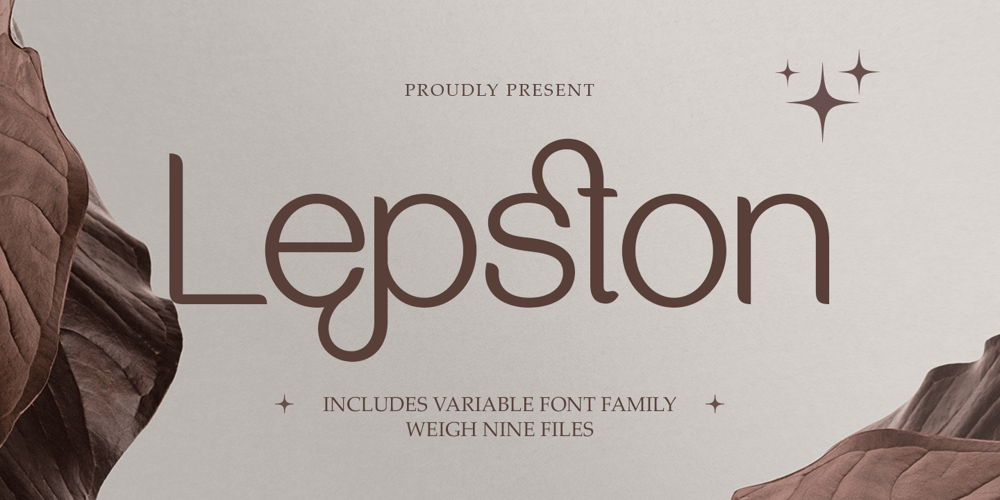
Lepston Font Family was designed by Haikal Juanda and published by Pista Mova. Lepston contains 9 styles and family package options. Lepston comes in a modern style featuring 9 weights, straight & angled, making it easy to adapt to your design. An elegant typeface, Lepston is perfect for corporate identities, websites, publications, titles, books, magazines, business cards, logos, product labels, packaging, or any advertising purpose.Thank You